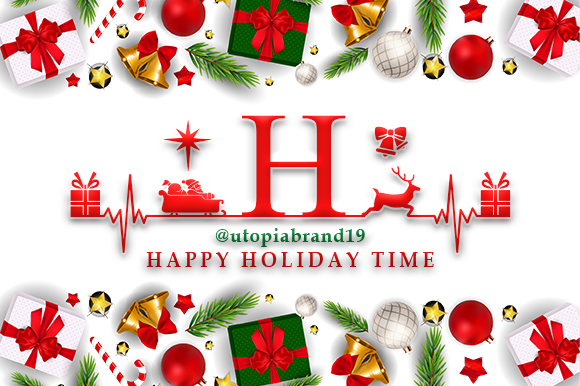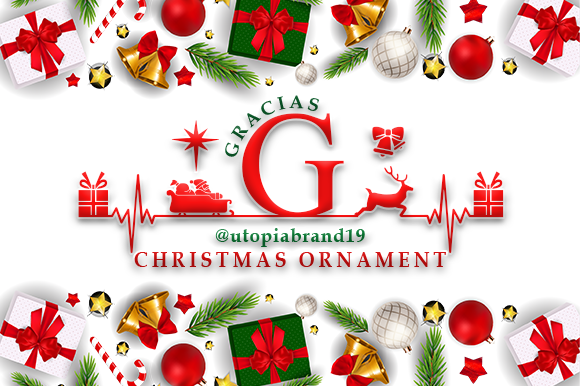
Monogram Christmas Ornament Font
Monogram Christmas Ornament is a highly detailed, unique and interestingly designed decorative font. Whether you use it for cartoon-related designs, children’s games or just any creation that requires a lovely touch, this font will be an amazing choice.